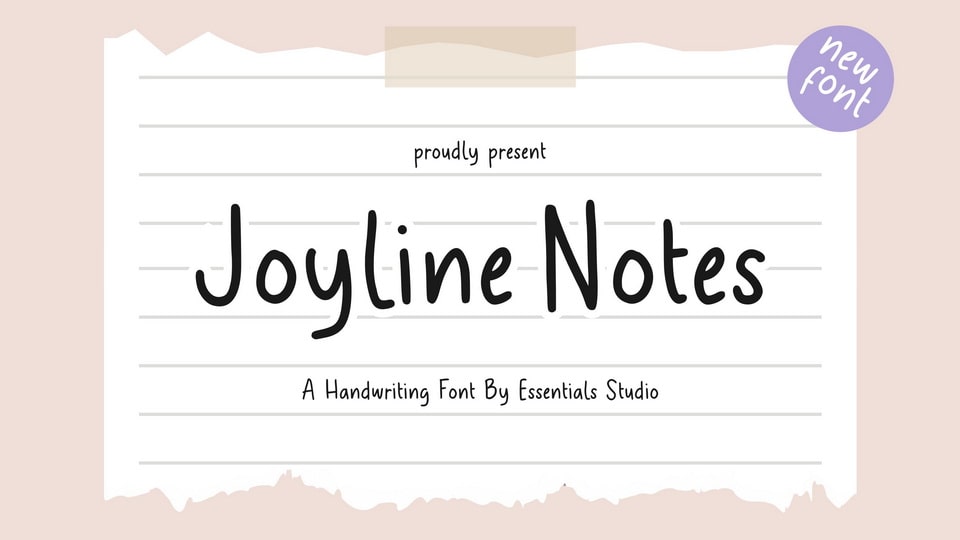
Download Joyline Notes font, a handwriting typeface. Joyline Notes is perfect for product packaging, branding project, magazine, social media, wedding, or just used to express words above the background.